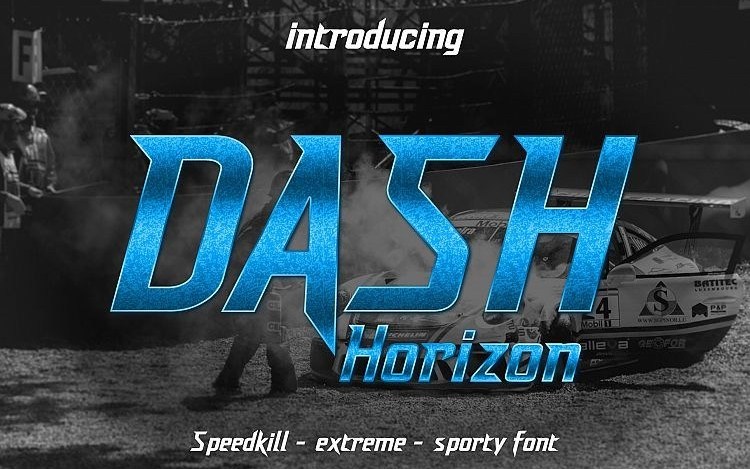
Dash Horizon Sporty Display Font – a new modern & fresh script with a Bold, strong style make this font looks extreme, strong and tought for any awesome projects that need sporty taste.
Dash Horizon with a distinct appearance of speed. It works well in vintage racing posters, automotive t-shirts, motorcycle events, garage signs, kid’s cards, esport logo, race number, extreme sport, the possibilities are endless!